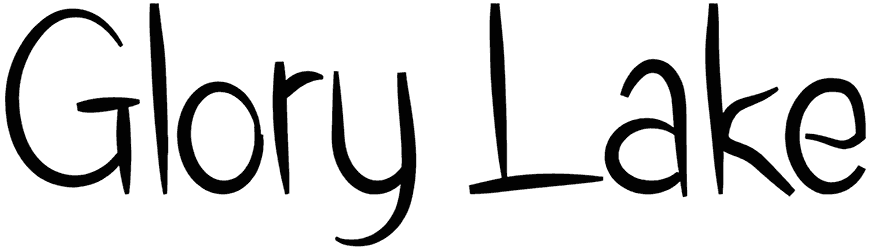
Glory Lake Font
Having a handwritten font like Glory Lake at your disposal will be a huge help when trying to make a design that can be appreciated by as many people as possible.
Thin and contemporary, this script font can be used for both solemn and humorous purposes. Its stunning face makes it perfect for any project, from business cards to advertisements for cosmetics to fashion designs. In what way are you delaying? Download it right now from our extensive library.